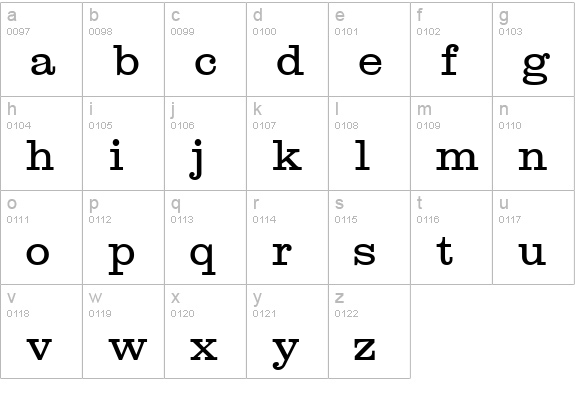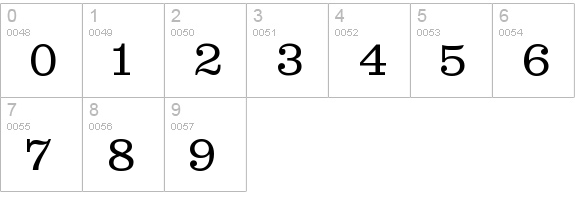
Clarion Regular is the standard, neutral variant in the Clarion typeface family \xE2\x80\x94 well suited to general body text, paragraphs, and standard typographic work.
Clarion Regular is a modern and sleek font that exudes professionalism and sophistication. With clean lines and a timeless design, this font is perfect for a wide range of projects, from branding to editorial design. Its versatility makes it suitable for both digital and print applications, ensuring that your message is delivered with clarity and style. What sets Clarion Regular apart is not just its elegant appearance, but also its accessibility. This font is available for free download at FontsMarket.com, allowing you to easily incorporate it into your creative work without any cost. Whether you are working on a personal project or a commercial venture, Clarion Regular is a valuable addition to your font library, offering a polished and refined look that will elevate your designs. Choose Clarion Regular for a font that combines beauty and functionality, all available for free at FontsMarket.com.